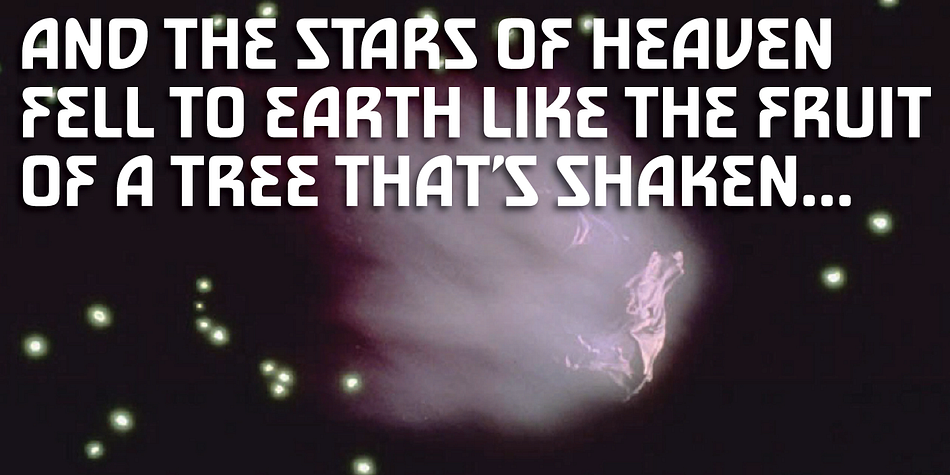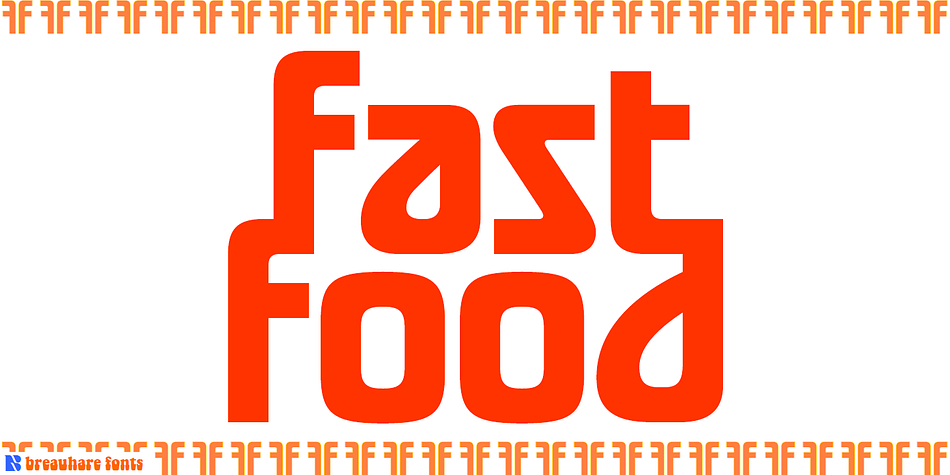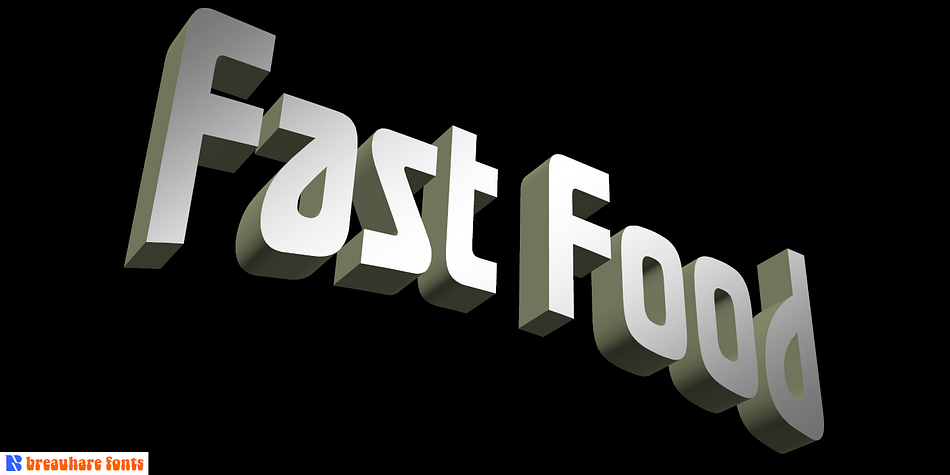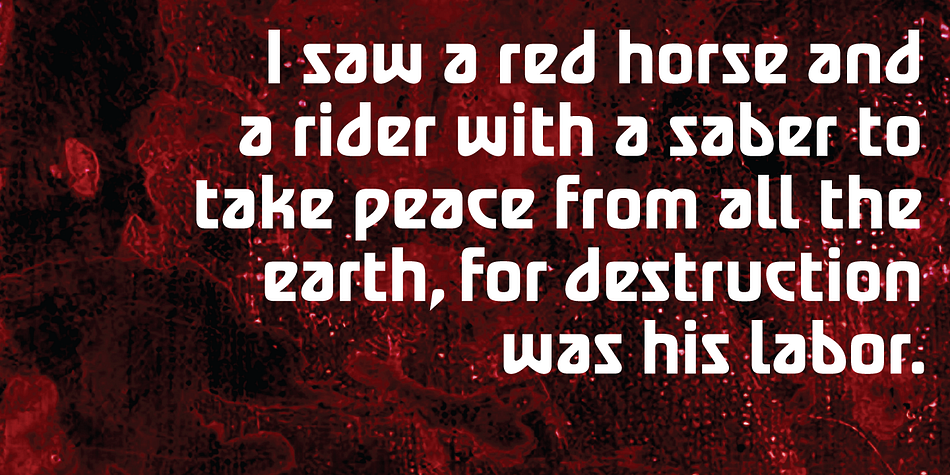
Designed by Harry Warren, Fast Food is a display sans font published by Breauhare Fonts.
Fast Food is a font based on the former logo of a hamburger chain. It has that look of the 1970s & 1980s, yet also has a futuristic, alienesque, sci-fi look about it. It can be used for projects aimed at consumers waxing nostalgic for their good old days, or for movie posters or books about the great final frontier, and much more.
There’s an alternate uppercase E & F, both of which are really stylin’! You may even develop such an appetite that you’ll want to supersize your order!
This font was digitized by John Bomparte.